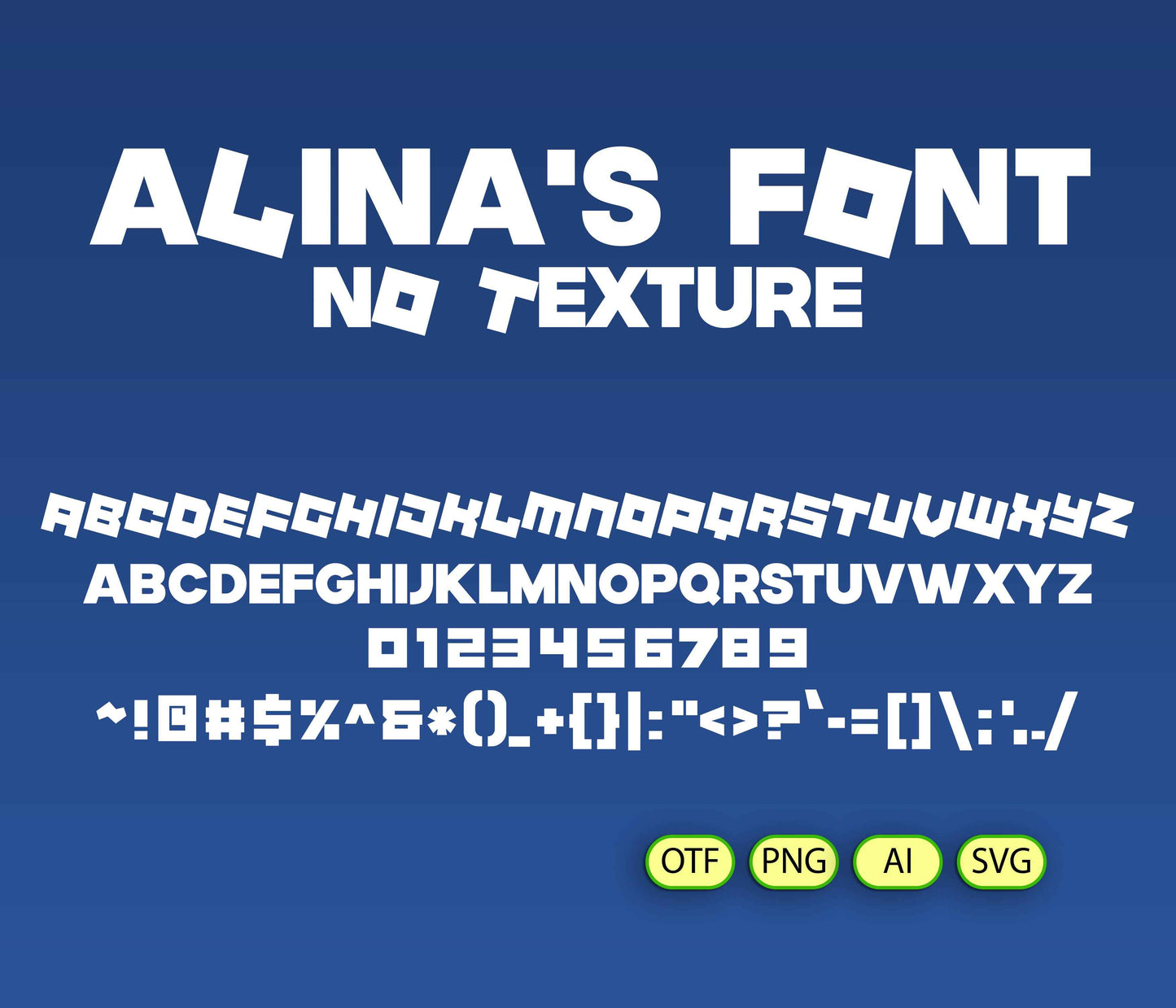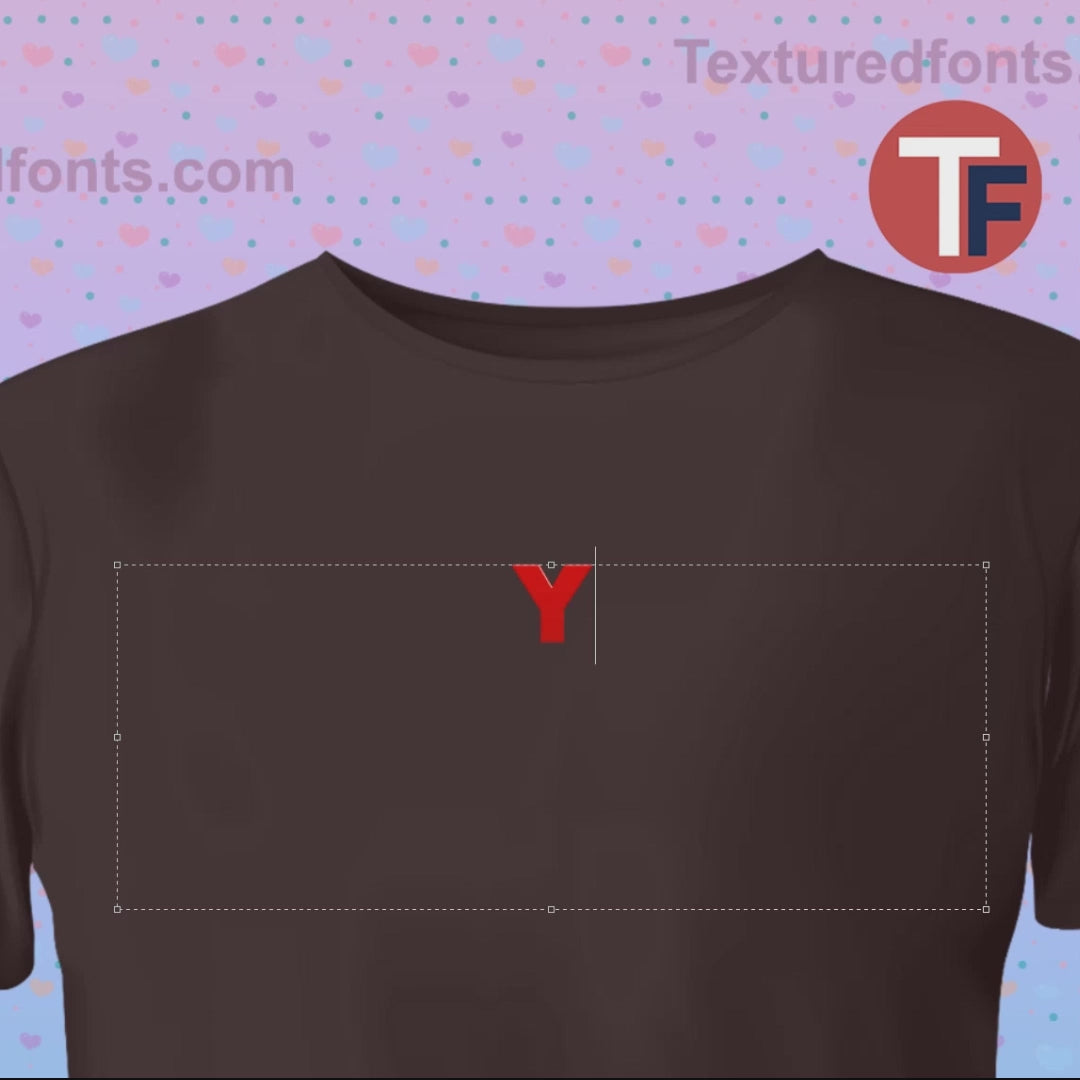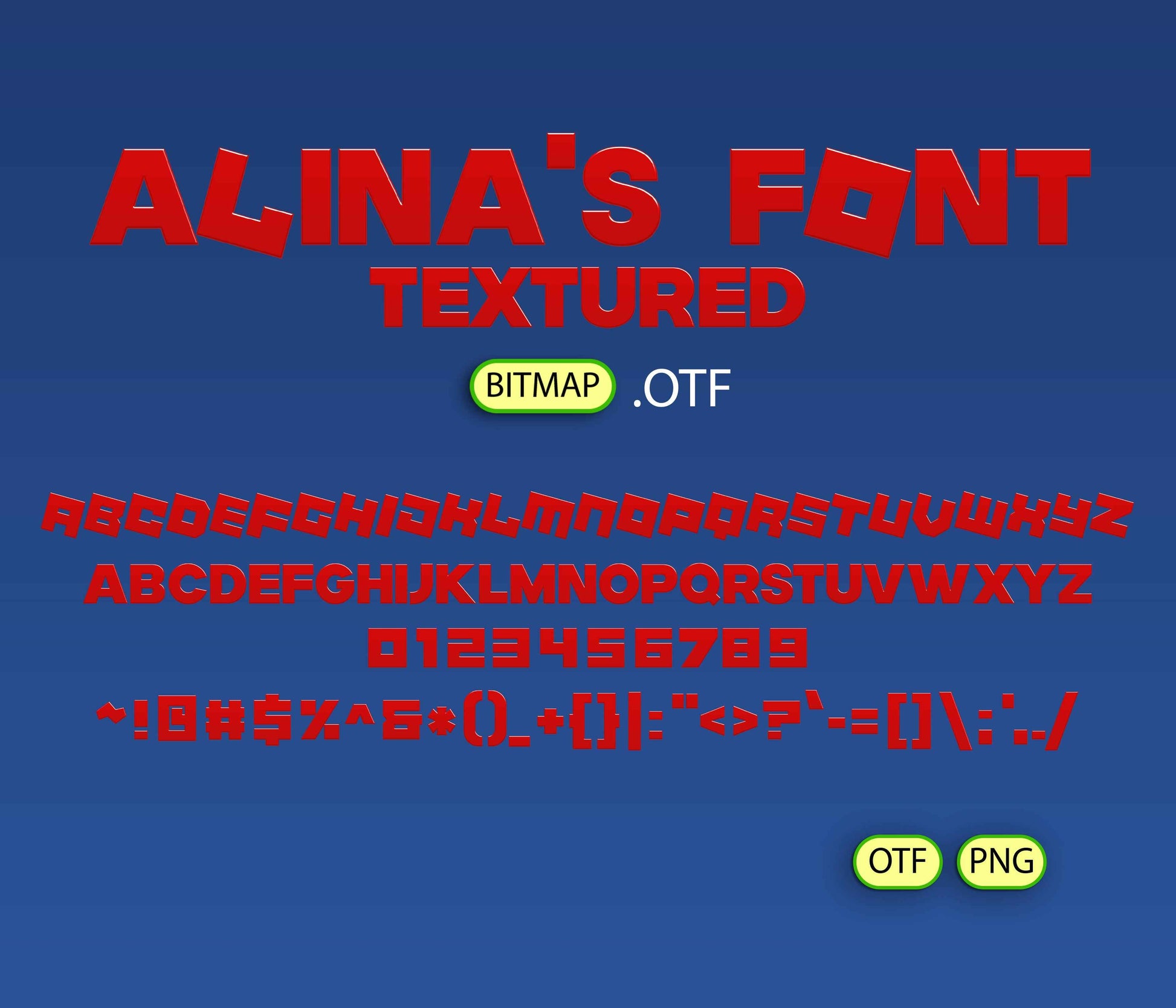
BlockWorld Font Textured
Power Up Your Designs with the BlockWorld Font
Dive into the dynamic and endlessly creative world of BlockWorld with our BlockWorld-inspired font, designed to capture the fun and interactive spirit of this popular gaming platform. Perfect for fans, game developers, and content creators, this font brings the blocky, digital look of BlockWorld into your design projects, making it ideal for everything from game interface design to fan merchandise.
Our BlockWorld-inspired font features bold, square-shaped letters with a modern, digital twist that reflects the platform’s architecture and user-generated content. The clear and readable style is perfect for a wide range of applications:
Many people seek out a BlockWorld Font generator online to mimic the look of the BlockWorld Font. Steer clear! No font generator can match the quality of this BlockWorld Font, which comes in two versatile versions: a textured colored BlockWorld font and a simple BlockWorld font. This is particularly beneficial if you plan to use it with a cutting machine.
To ensure the font meets the diverse needs of all users and remains highly accessible, our BlockWorld-inspired font includes both textured and non-textured variants. The non-textured version is particularly useful, ensuring compatibility with all types of software, including Canva. This feature allows for smooth integration into various projects, enhancing usability across different design platforms without any technical hurdles.
Our BlockWorld font not only captures the essence of the gaming platform but also enhances your creative projects with its bold and inviting style. Whether you're designing for a gaming event, creating content for digital platforms, or producing merchandise, this font ensures your projects resonate with the energy and creativity of BlockWorld. Ready to build your next big design? Let our BlockWorld-inspired font be your guide to crafting visually compelling and thematic creations that speak directly to fans and gamers alike.